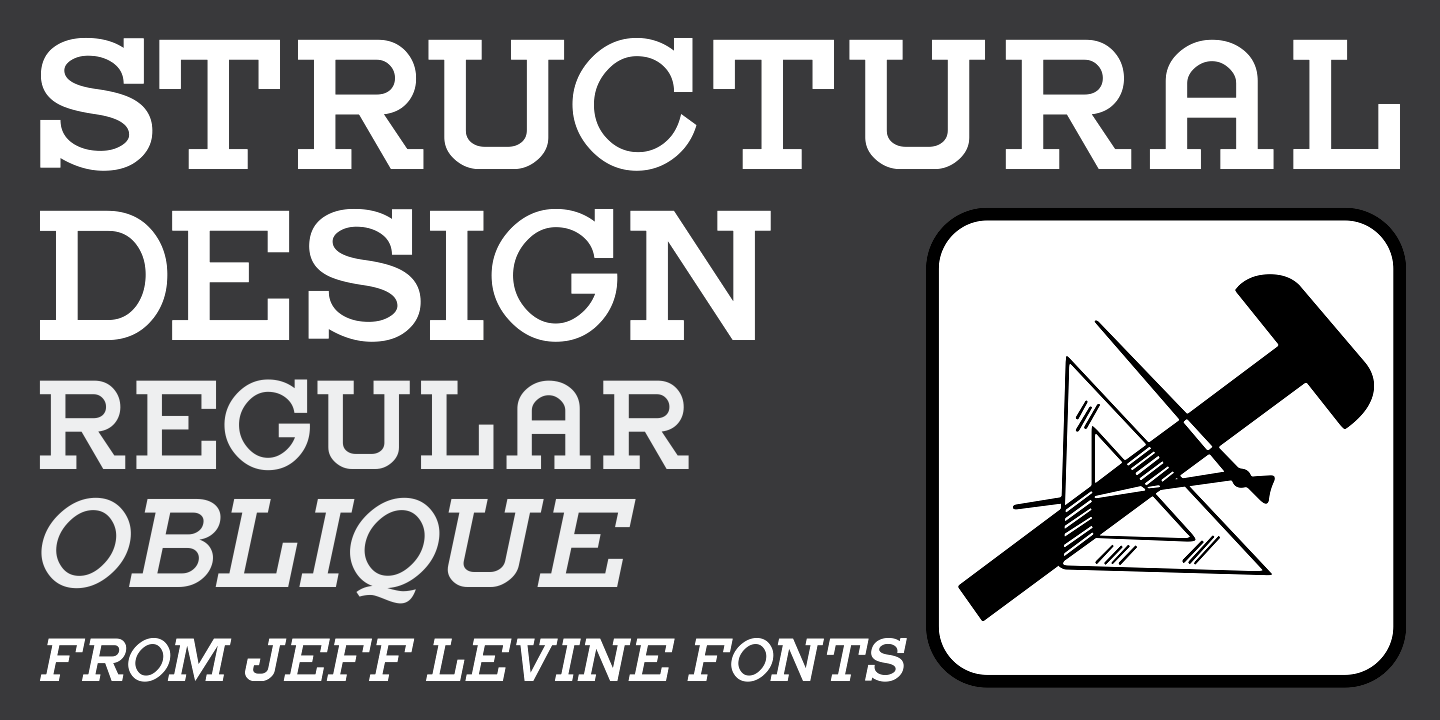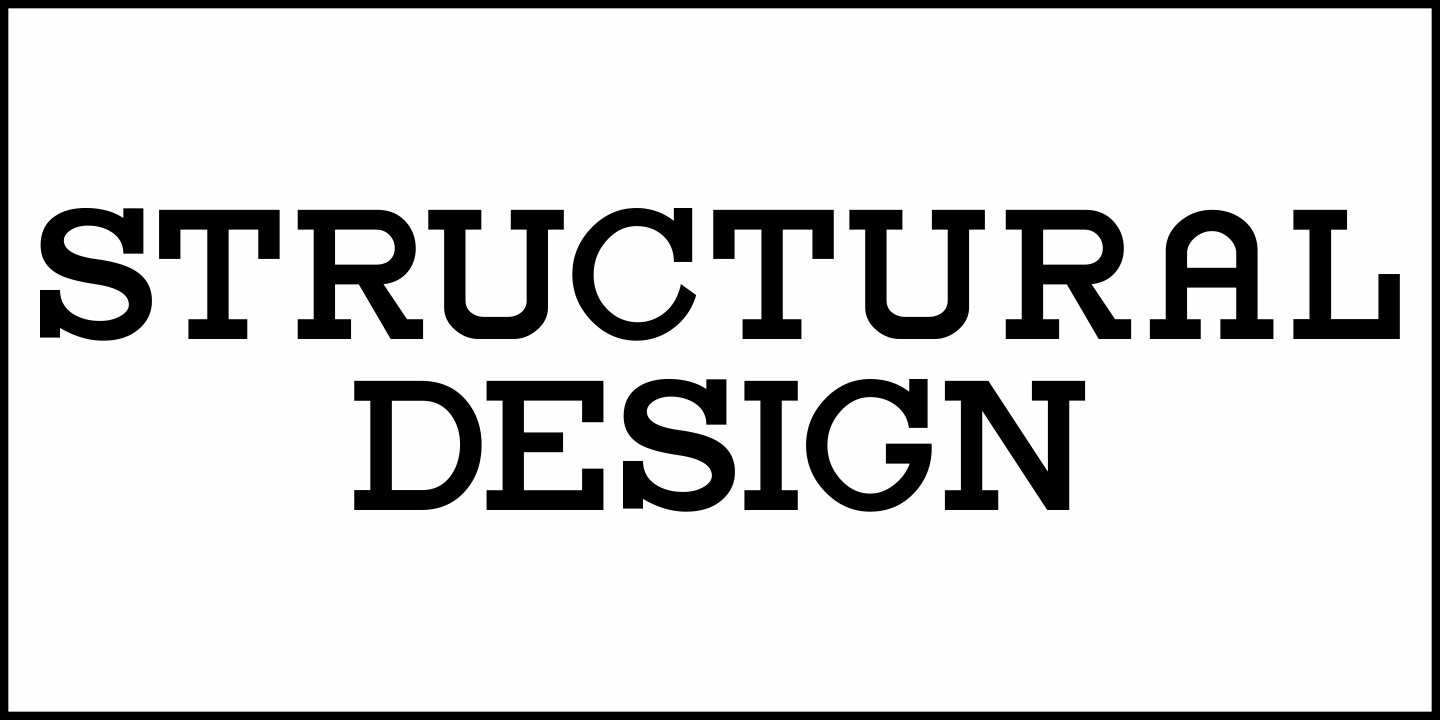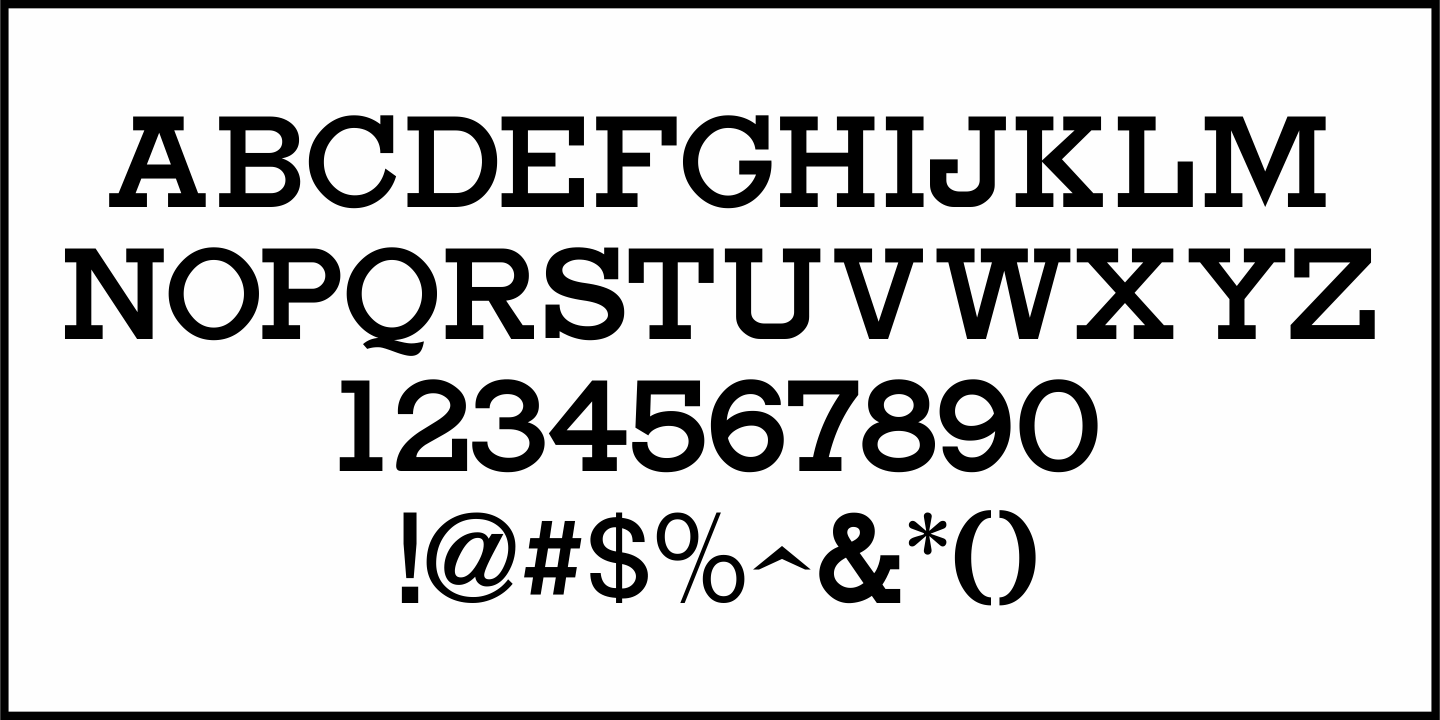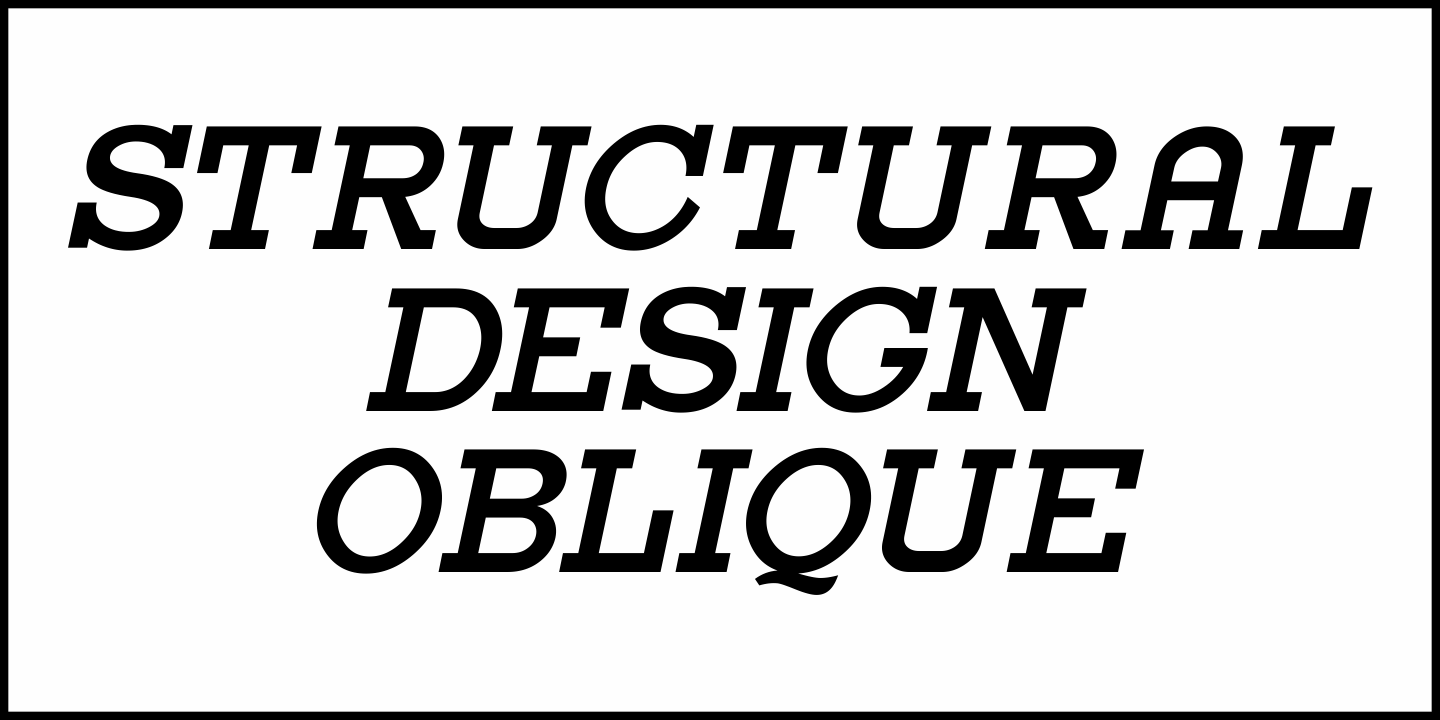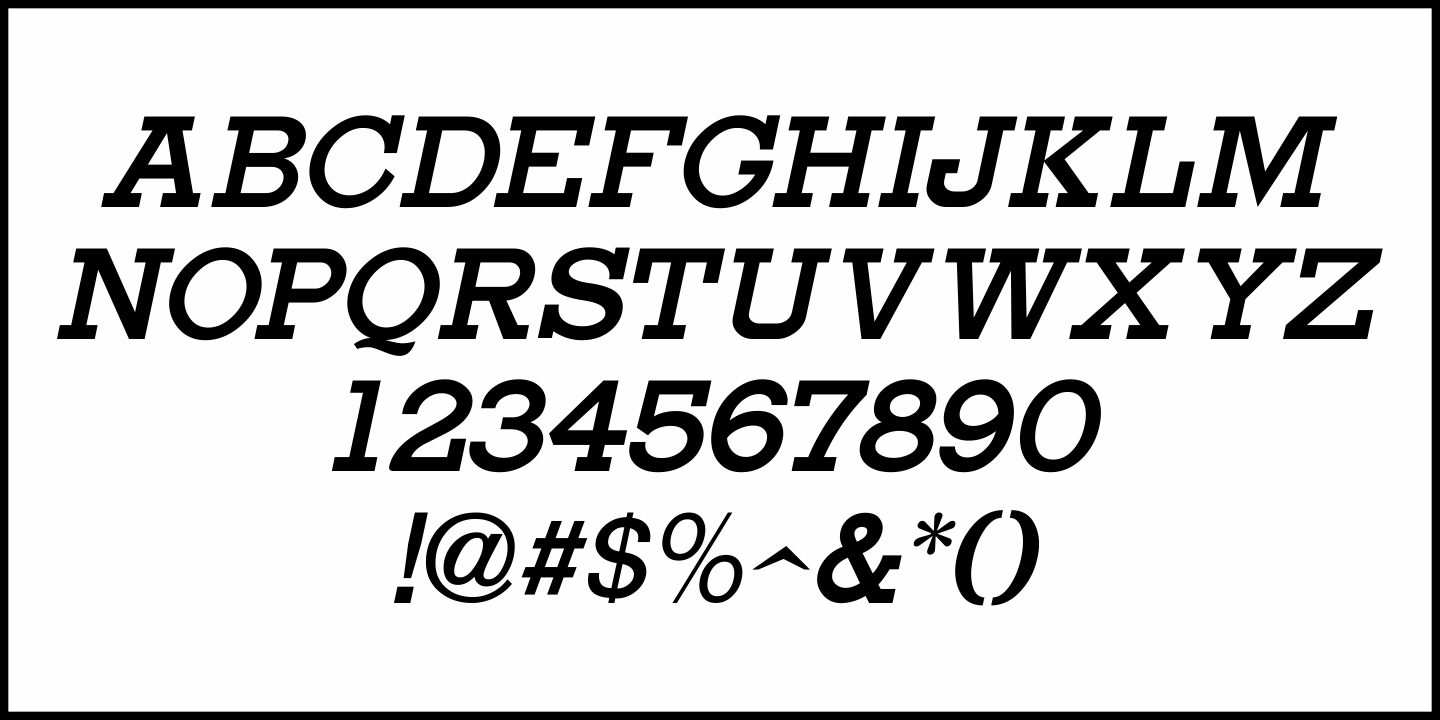
Structural Design
Various headlines in the 1937 Film Daily Year Book of Motion Pictures utilized a fairly-new slab serif design called Rockwell.
Structural Design JNL is Jeff Levine Fonts' version of this utilitarian type design, and is available in both regular and oblique versions. According to Wikipedia: "Rockwell is a slab serif typeface designed by the Monotype Corporation and released in 1934. The project was supervised by Monotype's engineering manager Frank Hinman Pierpont."
There is an alternate 'A' on the lower case 'a' key, as well as a second alternate 'A' on the vertical bar key.